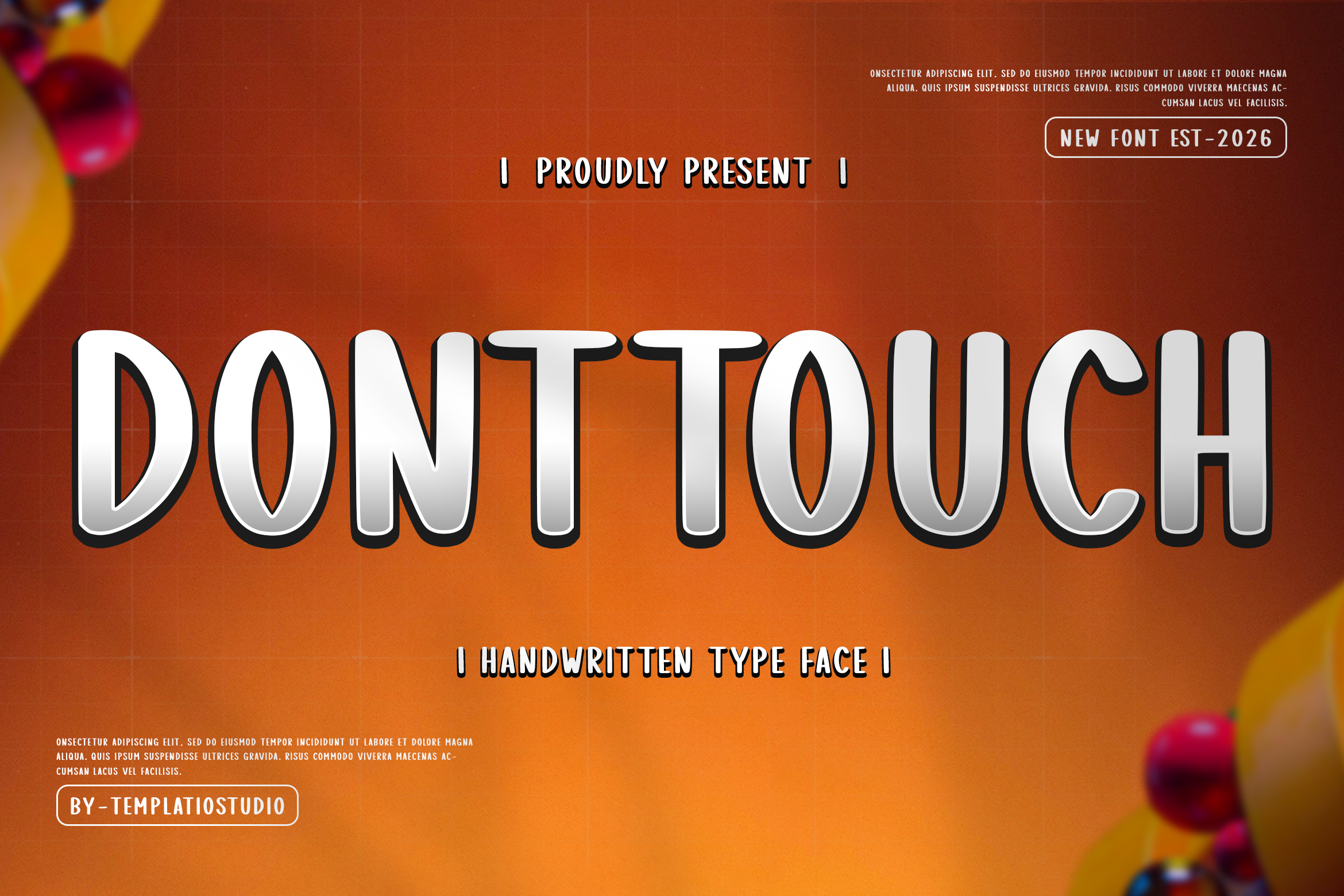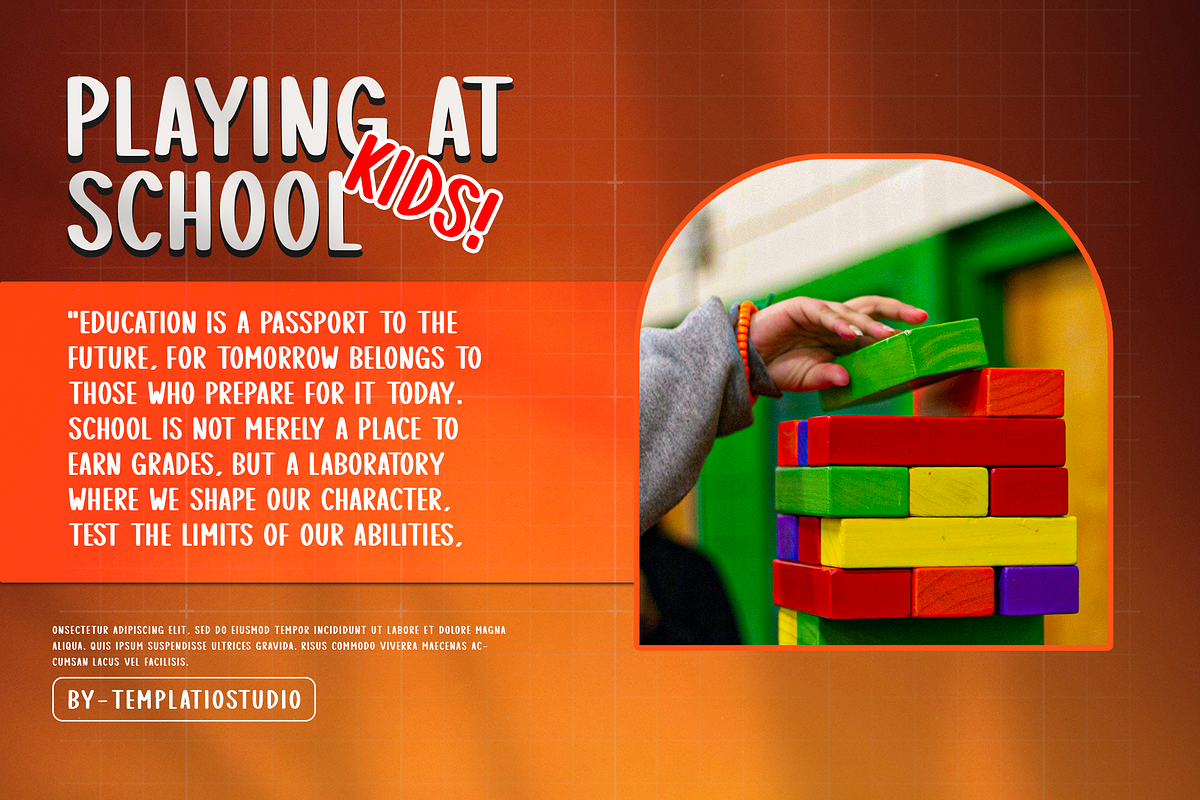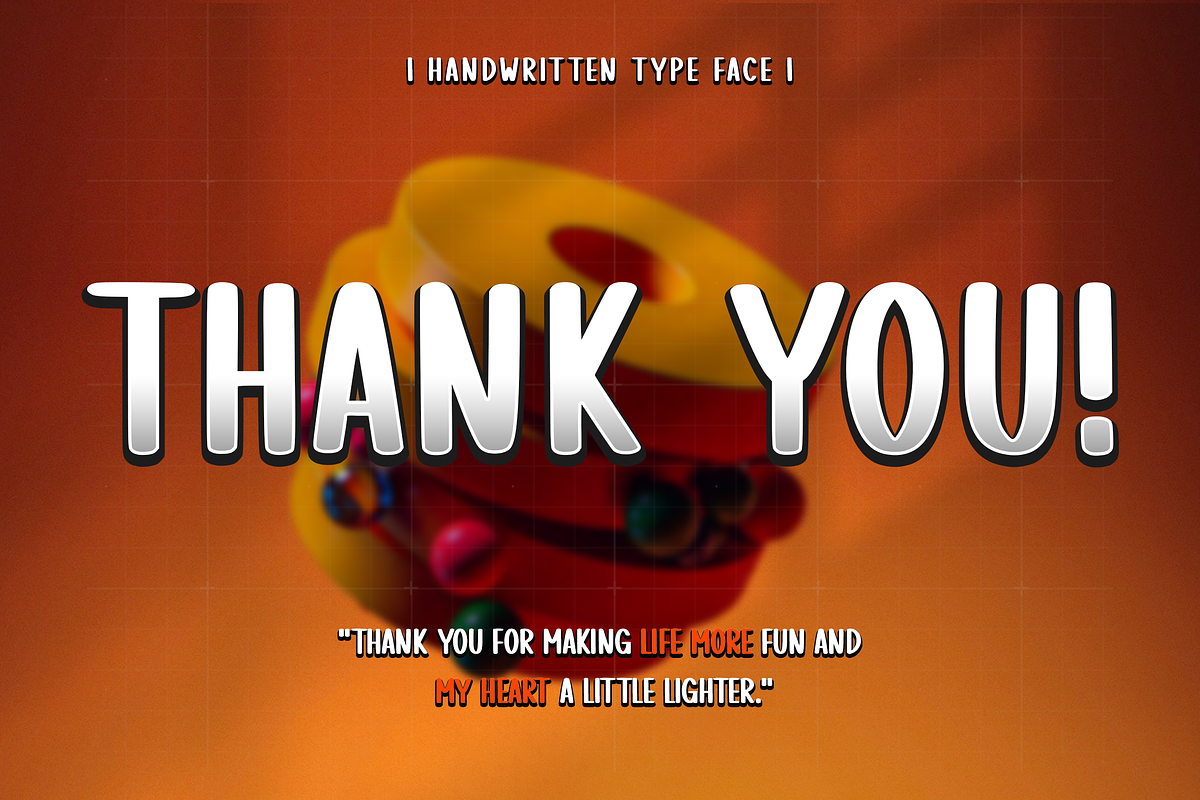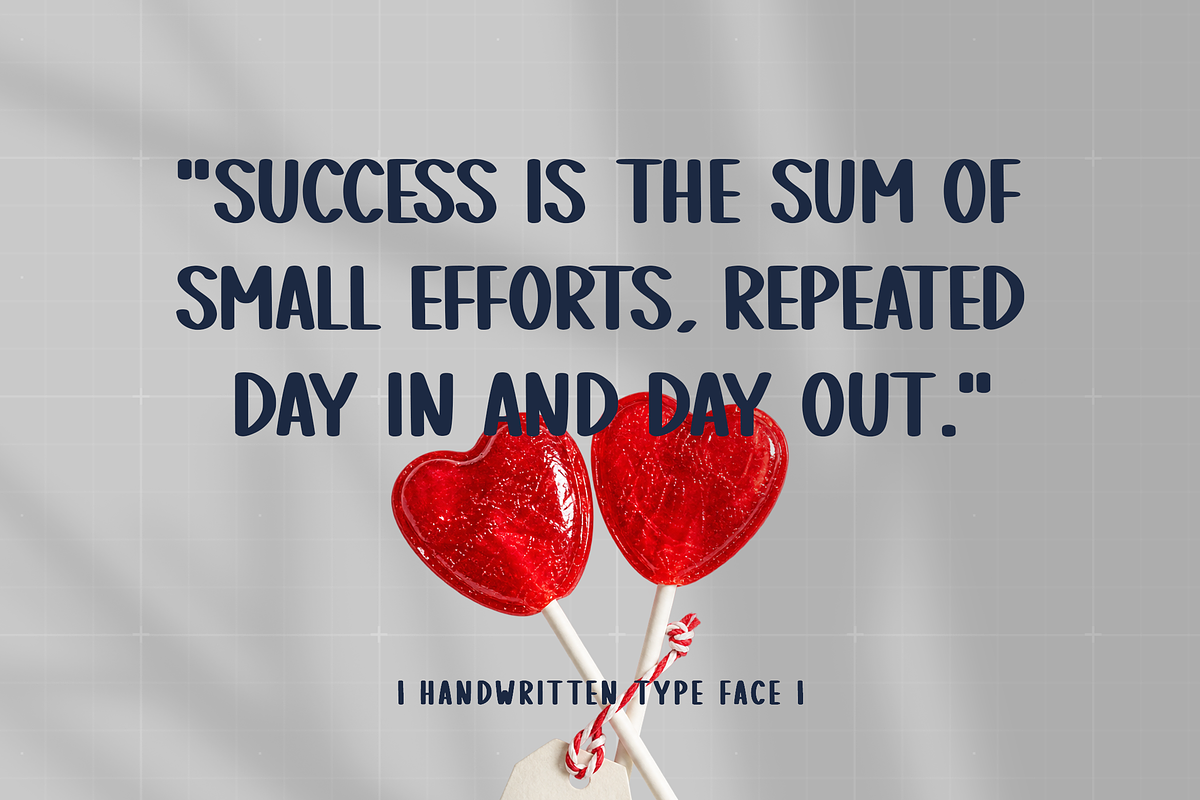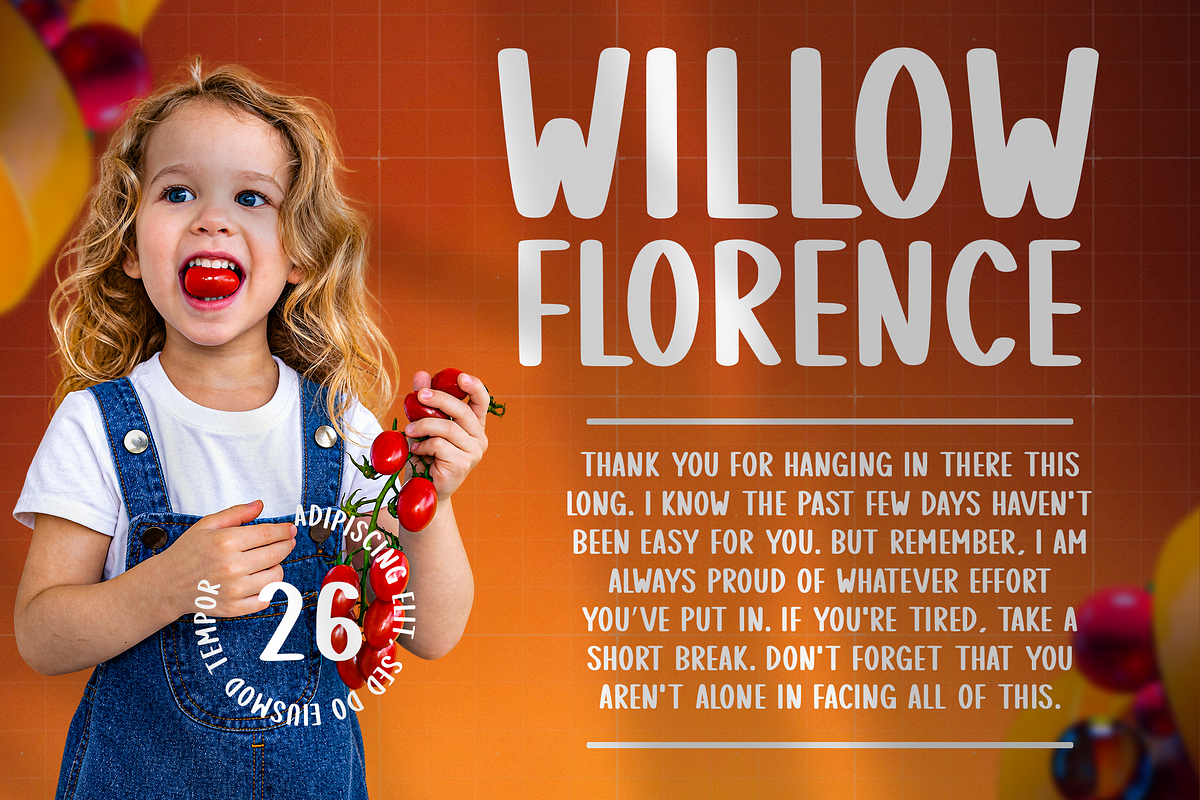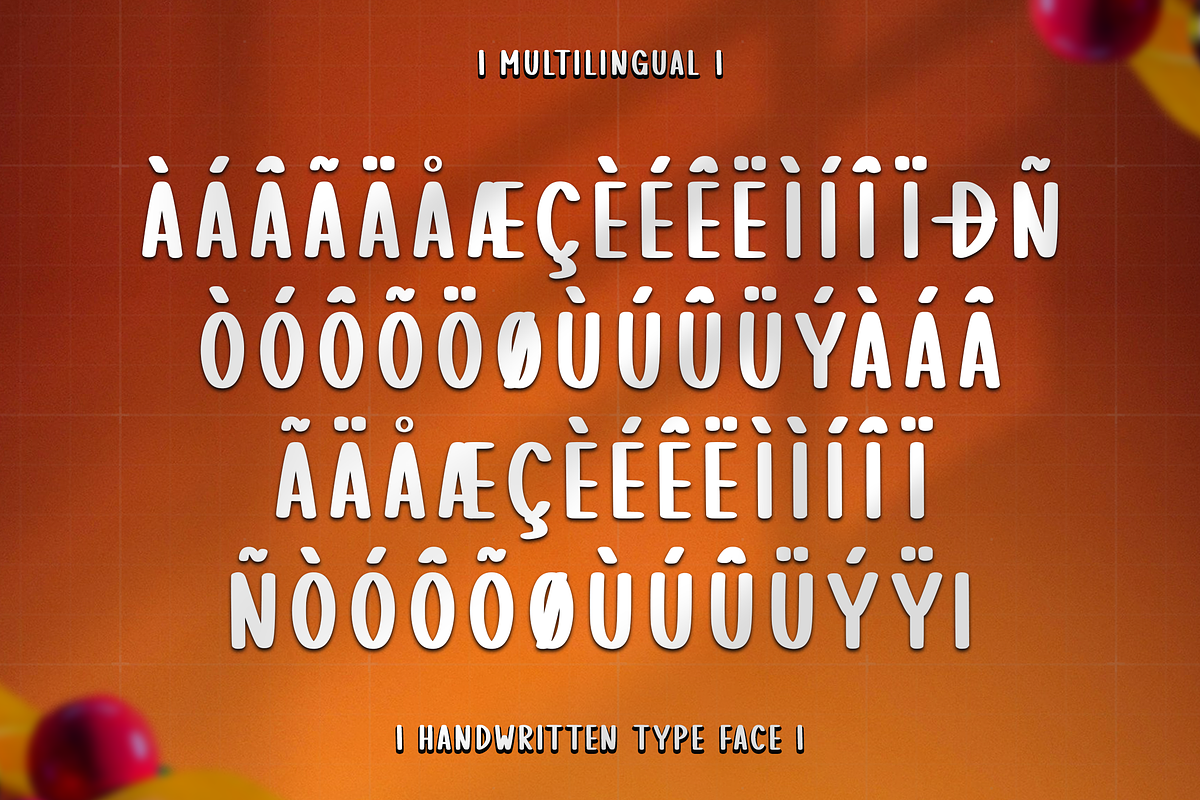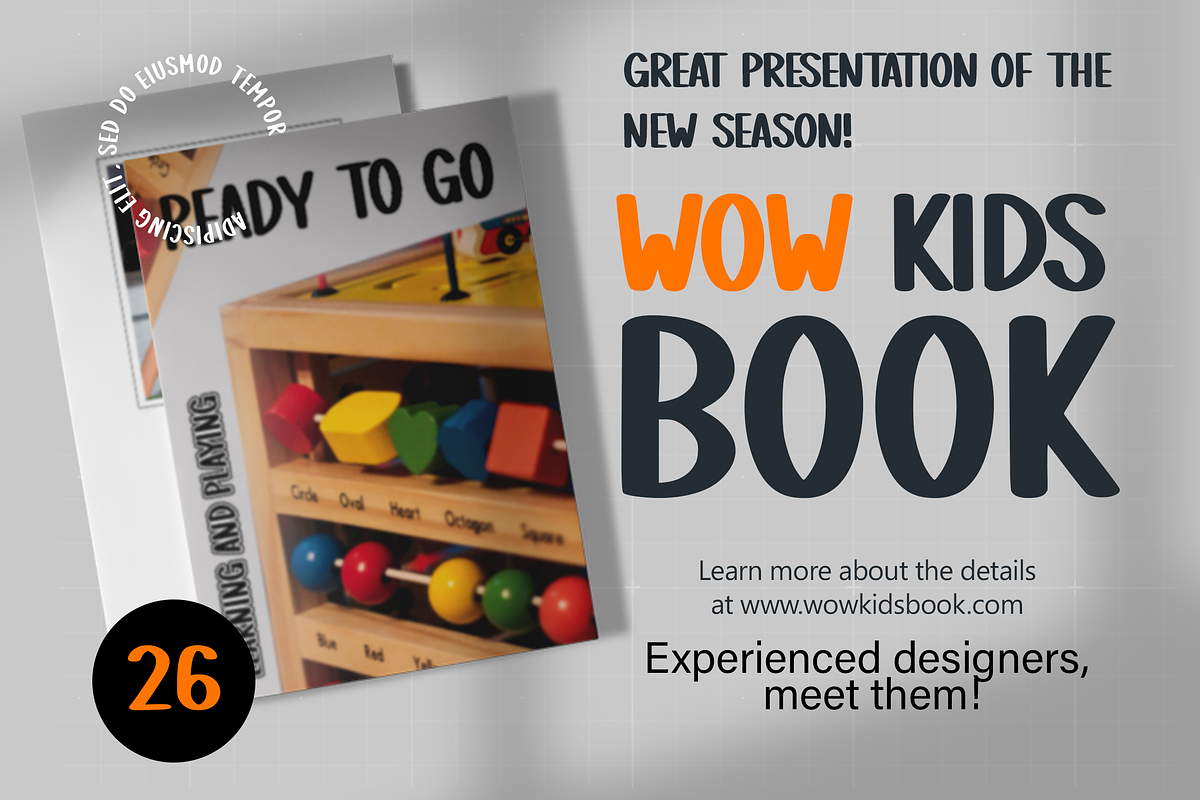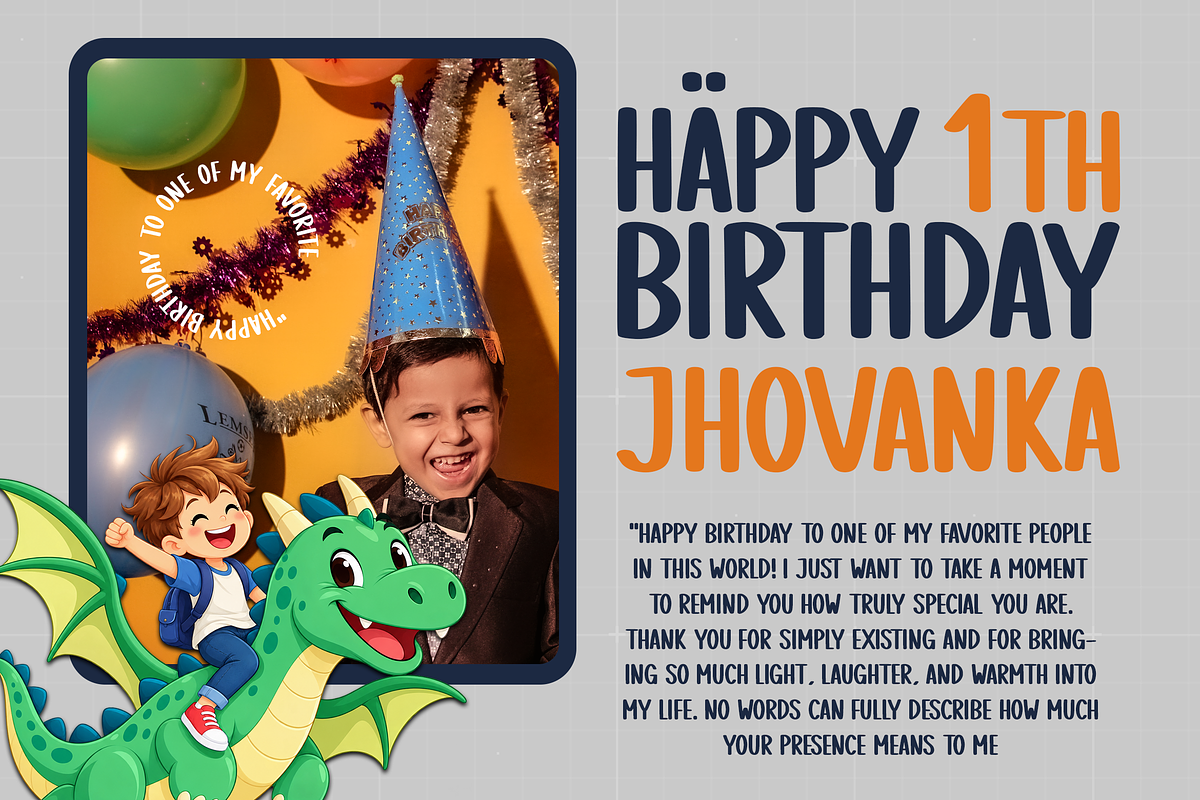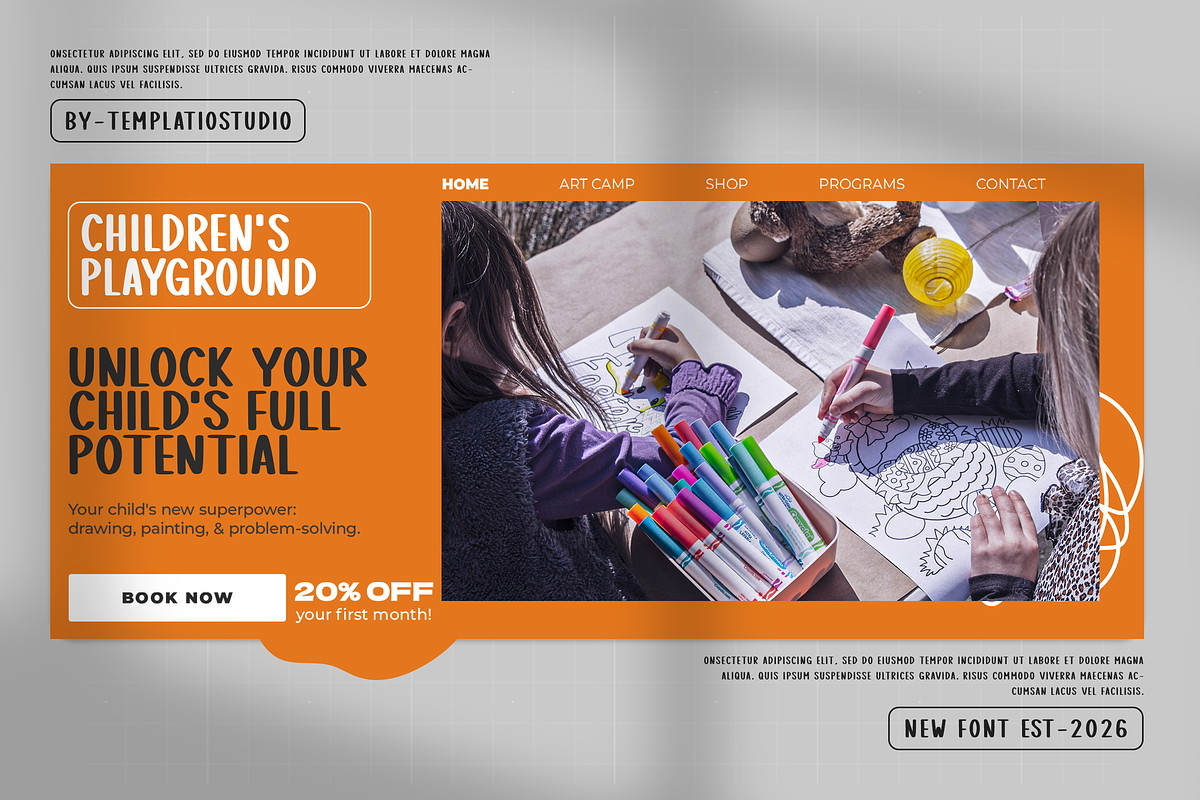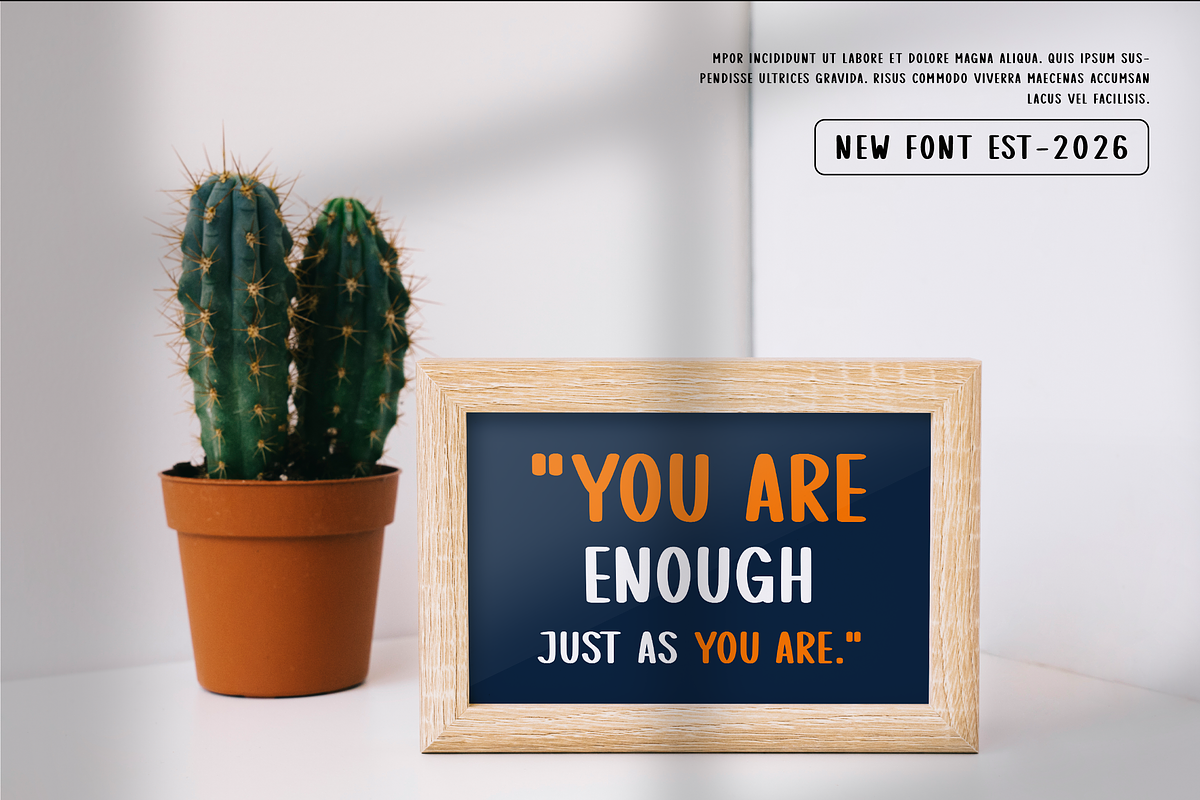
Don't Touch Handwritten Script Font
Dont Touch is a bold handwritten script font with a playful, expressive,
and eye-catching character. Its chunky handwritten strokes give designs
a fun handmade personality while keeping the lettering strong and easy
to notice.